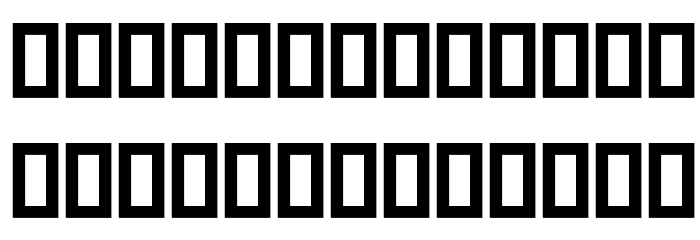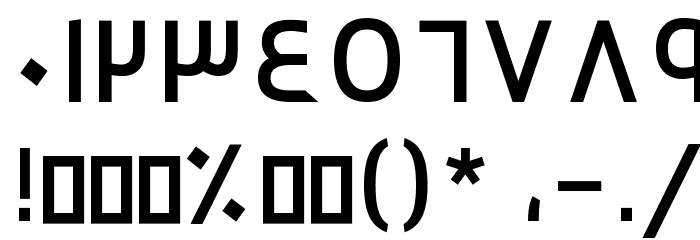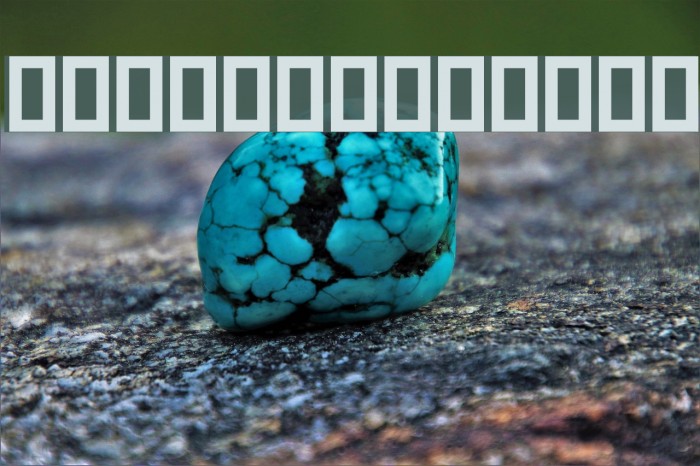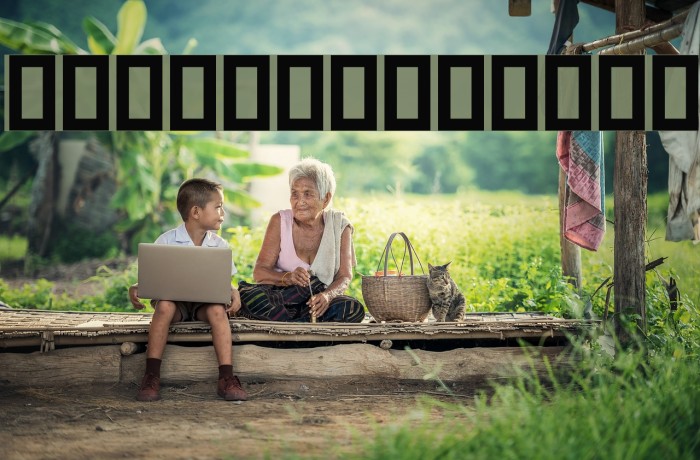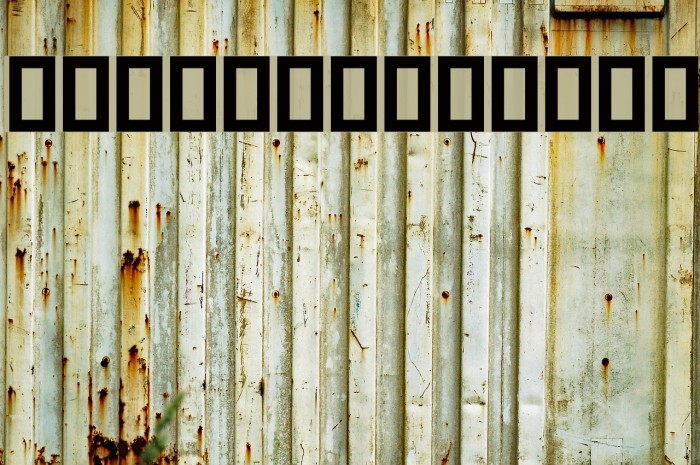
Samiraa Font
This font features a bold, geometric design with a modern and futuristic aesthetic. The characters are constructed with sharp angles and straight lines, giving it a distinctive and edgy appearance. The uppercase and lowercase letters maintain a consistent height, contributing to a uniform look. The numerals and special characters are designed to match the overall style, with a focus on clarity and readability. This font's unique style makes it suitable for creative and contemporary projects where a strong visual impact is desired.
- Proposed Projects: Ideal for branding, posters, digital media, and any project requiring a modern and impactful typeface.